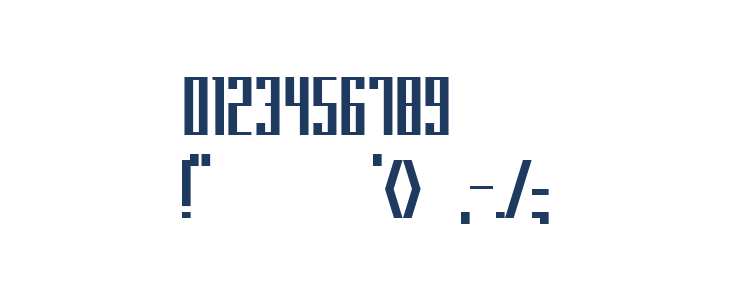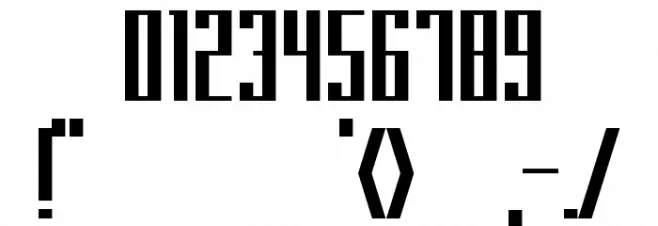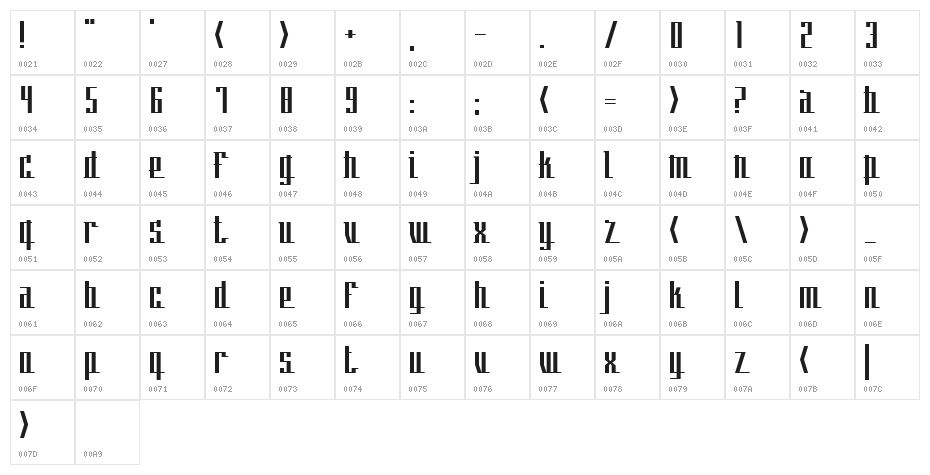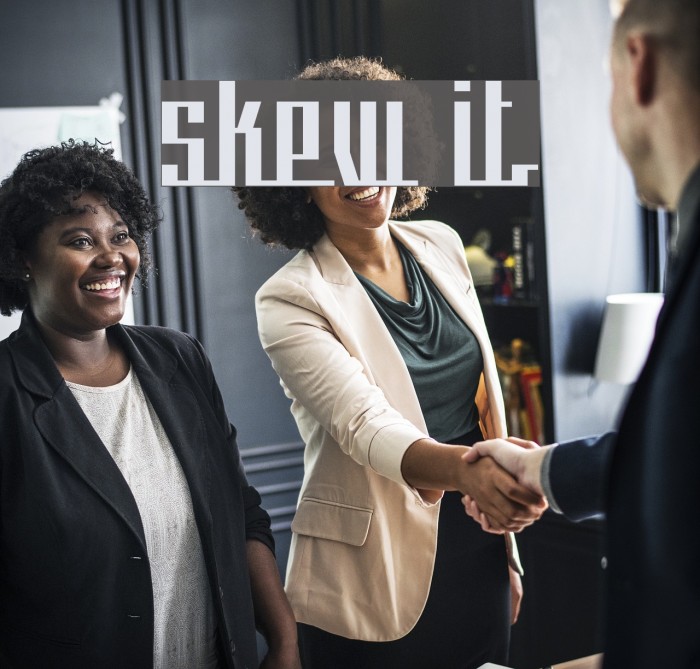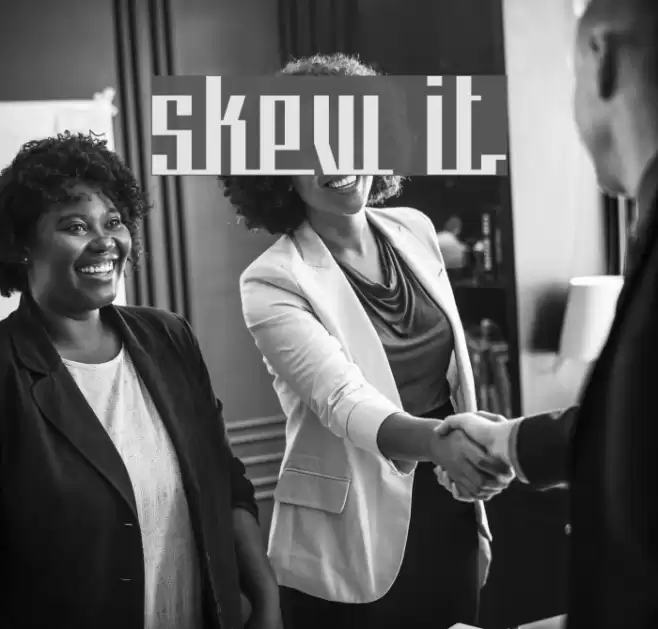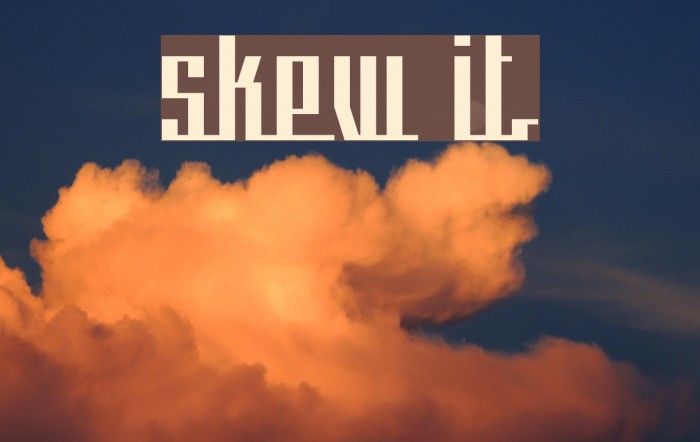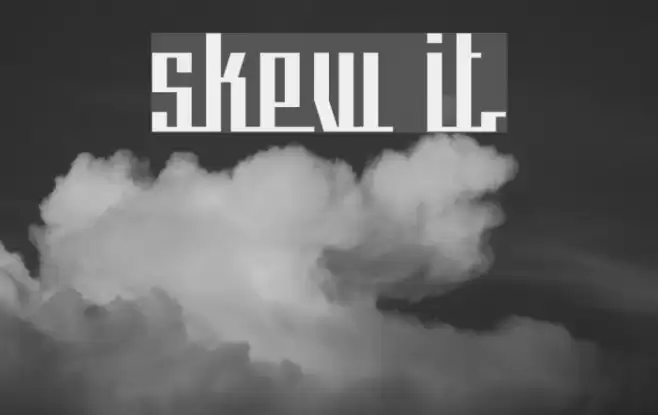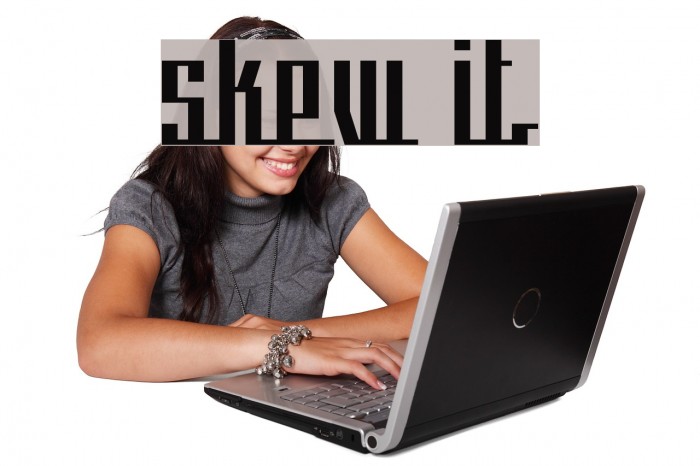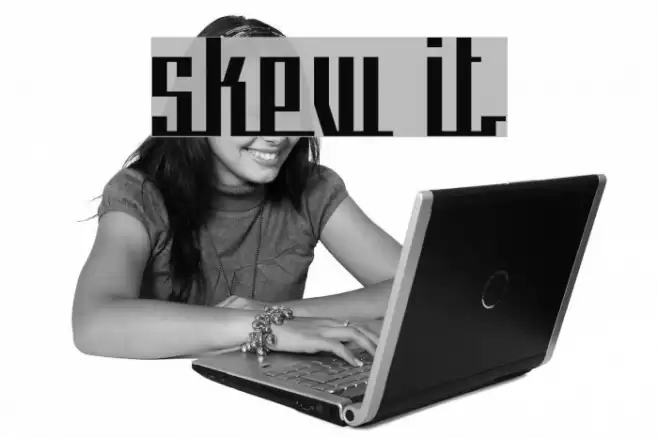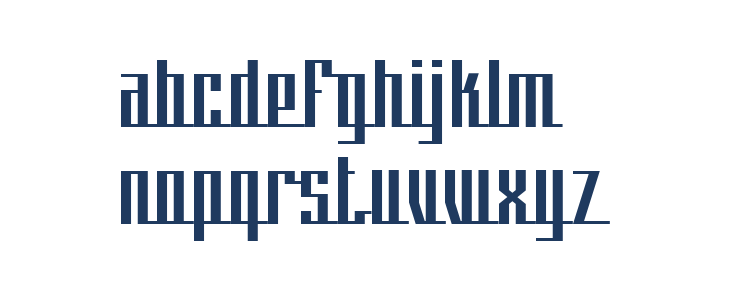
skew it Font
skew it Description
This font features a bold, geometric design with a distinctively modern and edgy appearance. The characters are constructed with sharp angles and straight lines, giving them a futuristic and digital feel. The uppercase and lowercase letters maintain a consistent height, creating a uniform look across the text. The numbers and special characters follow the same design principles, ensuring a cohesive style throughout. The font's unique structure makes it stand out, ideal for projects that require a strong visual impact.